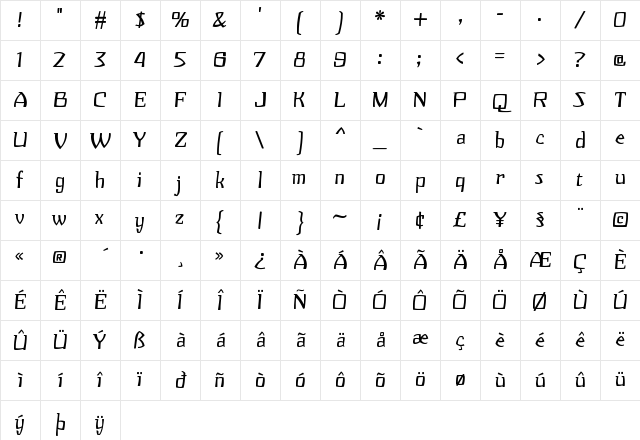
Zupiter Regular Free Font
Zupiter Regular
Foundry: Typodermic
Design Context for Zupiter
Zupiter is a composed and adaptable typeface that performs quietly and consistently across a wide range of design contexts.